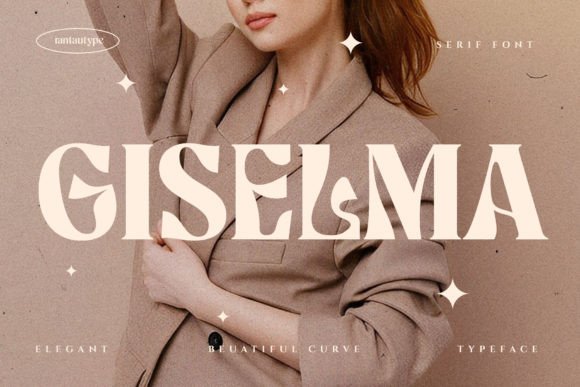
Step into the world of Giselma Font, a serif masterpiece that exudes boldness and confidence. This font is a game-changer, ready to transform your designs into captivating works of art. With its unwavering presence, Giselma Font isn't just another font; it's an experience, an expression of individuality, and a gateway to unleashing your creative genius.
Giselma Font is not merely a collection of letters; it's a symphony of sophistication, elegance, and power. Its sharp serifs and graceful curves create a visual harmony that dances across the page, demanding attention and inspiring awe. Whether you're crafting a calling card, designing a poster, or creating a captivating logo, Giselma Font will elevate your work to new heights, leaving a lasting impression on your audience.
This font is more than just a tool; it's an extension of your creative self. Its versatility knows no bounds, adapting seamlessly to any project you throw its way. From delicate wedding invitations to bold branding campaigns, Giselma Font will be your trusted companion, adding a touch of sophistication and uniqueness to every design.
Imagine your calling card, adorned with the timeless beauty of Giselma Font, standing out from the crowd. The bold strokes and refined details will command attention, leaving a lasting impression on potential clients and employers. Or picture your poster, emblazoned with Giselma Font's captivating presence, drawing eyes and igniting curiosity, leaving a mark on the hearts and minds of your audience.
With Giselma Font, you're not just buying a font; you're investing in a creative revolution. It's a font that will ignite your imagination, fuel your creativity, and elevate your designs beyond the ordinary. Embrace the power of Giselma Font and watch your creative dreams come to life.